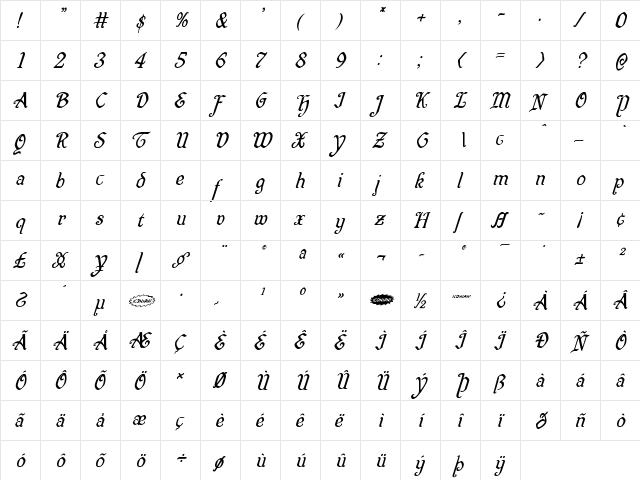
Quill Sword Super-Italic Italic
Design Context for Quill Sword Super-Italic Typeface
Quill Sword Super-Italic takes a measured approach to typography — its balanced proportions and neutral character make it a reliable workhorse for both digital and print work. The dynamic lean of this cut emphasises speed and emphasis in any layout.
Pro Tip: Use Quill Sword Super-Italic for emphasis, pull quotes, and subheadings where its slanted energy can add rhythm to the layout.